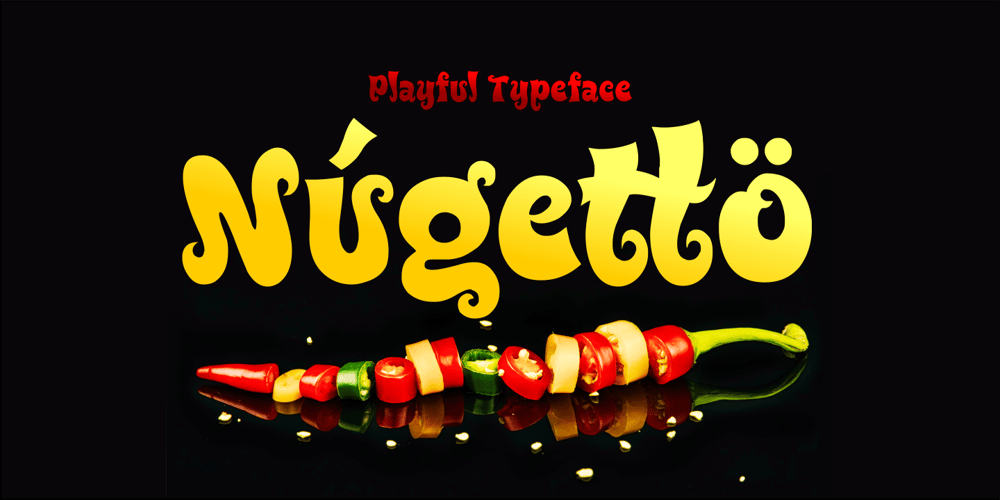
Nugetto
Nugetto font
Nugetto Font Family was designed by Ahmad Zulfikar Ali and published by ZetDesign. Nugetto contains 1 styles and family package options. Nugetto is a font with a groovy theme. This font has bold, pointed, and circular strokes so it looks very bold but still has a lot of flexibility. This font is very suitable for non-formal writing such as party celebrations, Halloween, food, holidays, and is also suitable for writing on logos…